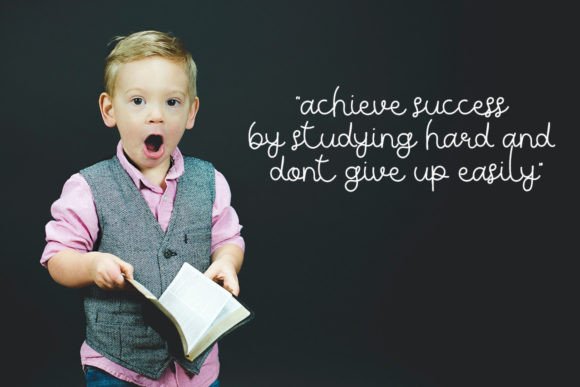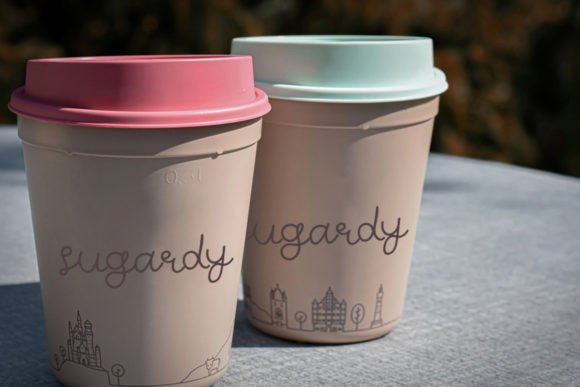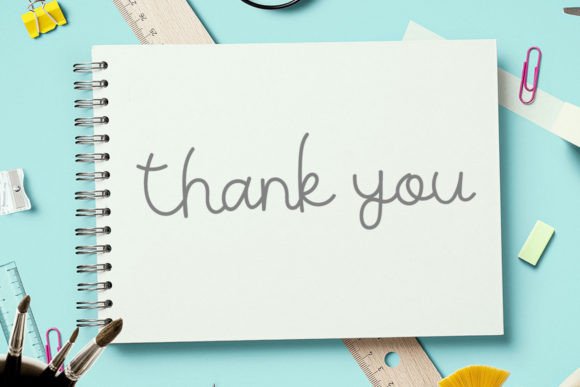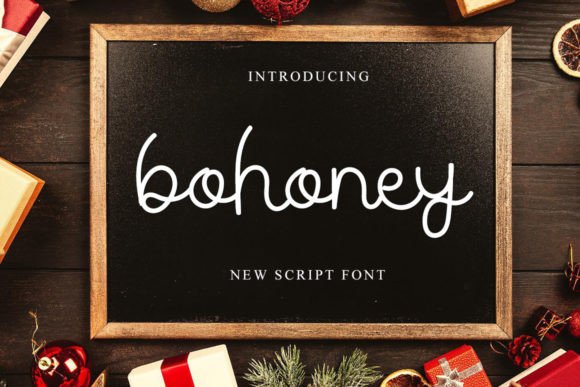
The Sweet Spot: Discovering the Charm of Bohoney Font
I’ll never forget the moment I stumbled upon Bohoney Font while working on a wedding invitation project. I was on a tight deadline, and my design was feeling flat and uninspired. I had a vision of something elegant, yet playful, but every font I tried seemed to fall short. That’s when I discovered Bohoney, and it was love at first sight! ✨ This beautiful, sweet handwritten font brought my design to life, and I’ve been hooked ever since.
An Honest Review: The Good and the Quirky
What I Love About Bohoney
- ✨ Fresh and clean aesthetic: Bohoney has a modern feel that’s perfect for a wide range of projects.
- ✅ Elegant and sophisticated: This font exudes refinement, making it ideal for formal events and designs.
- 🌈 Versatile: From wedding invitations to branding and packaging, Bohoney adapts seamlessly to various design needs.
- 💕 Joyful touch: This font adds a playful, whimsical feel that will make your designs stand out.
While Bohoney is an amazing font, there are a few things to keep in mind: 🤔
- ⚠️ Limited character set: As a handwritten font, Bohoney might not have all the characters or glyphs you need for specific projects.
- ⚠️ May not be suitable for body text: Due to its elegant, cursive nature, Bohoney is best used for headings and titles rather than large blocks of text.
- Experiment with OpenType features, such as ligatures and stylistic alternates, to add visual interest.
The Story Behind Bohoney
Bohoney was designed with the intention of creating a beautiful, yet approachable font for creative projects. Its designer aimed to craft a typeface that would bring a sense of joy and playfulness to designs, while maintaining an elegant and refined feel. 💫
Q: What type of projects is Bohoney best suited for?
A: Bohoney is versatile and can be used for a wide range of projects, including wedding invitations, branding, packaging, and more.
Q: Does Bohoney support OpenType features?
A: Yes, Bohoney supports OpenType features, including ligatures, stylistic alternates, and glyphs.
Q: Can I use Bohoney for body text?
A: While Bohoney is an elegant font, it’s best suited for headings and titles rather than large blocks of body text.